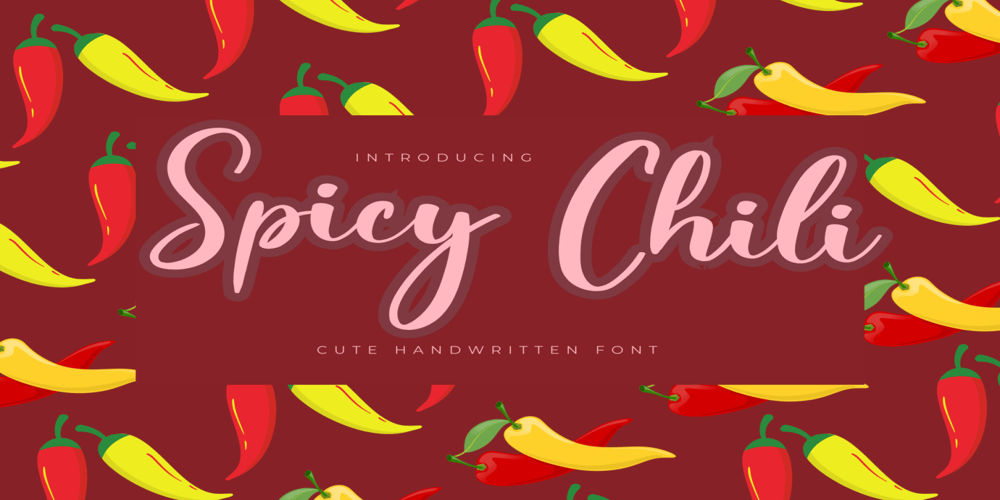
Spicy Chilli
Spicy Chilli font
Spicy Chilli Font Family was designed by Hausman and published by Adita Fonts. Spicy Chilli contains 1 styles and family package options. Spicy Chilli is a magical script font carefully created with a touch of elegance. Whether you’re looking for fonts for Instagram or calligraphy scripts for DIY projects, this font will turn any creative idea into a true piece of art!